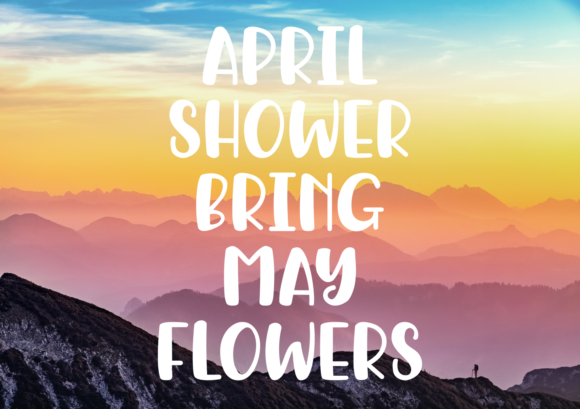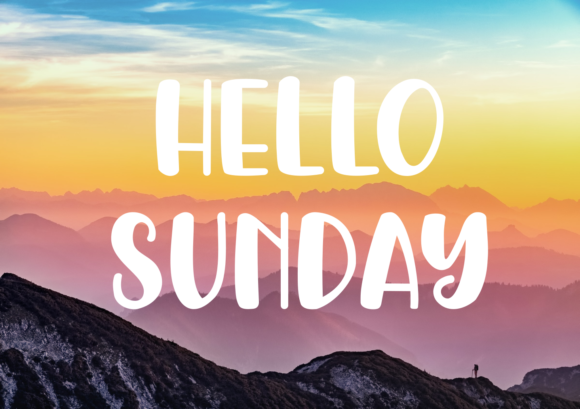
April Mop Font
db-ku.com - Script & Handwritten -- April Mop is a chic lettered and simple script font. Fall for its ravishing style and use it to create gorgeous wedding invitations, beautiful stationary art, eye-catching social media posts, and much more!